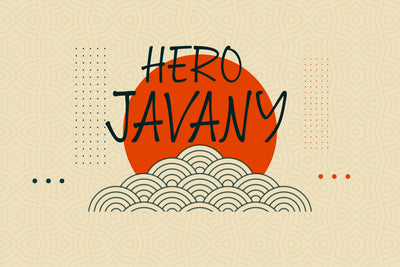
Hero Javany Font
Hero Javany is an incredibly genuine Japanese display font. Due to its unique style, this font is a must have in any font library. It is playful font, simple, fresh and friendly display brush font. It is perfect for creating fun designs. It is great for Instagram or Facebook posts, blog post headlines, product packaging, home decor, shirt design, and crafts.